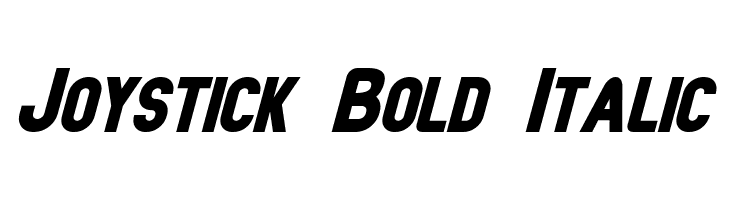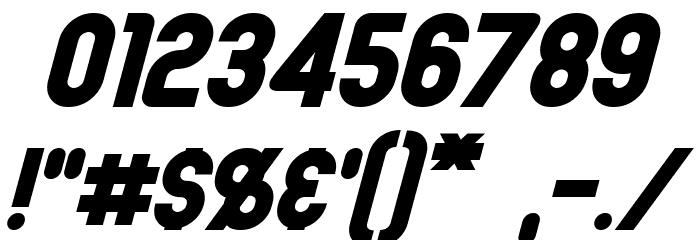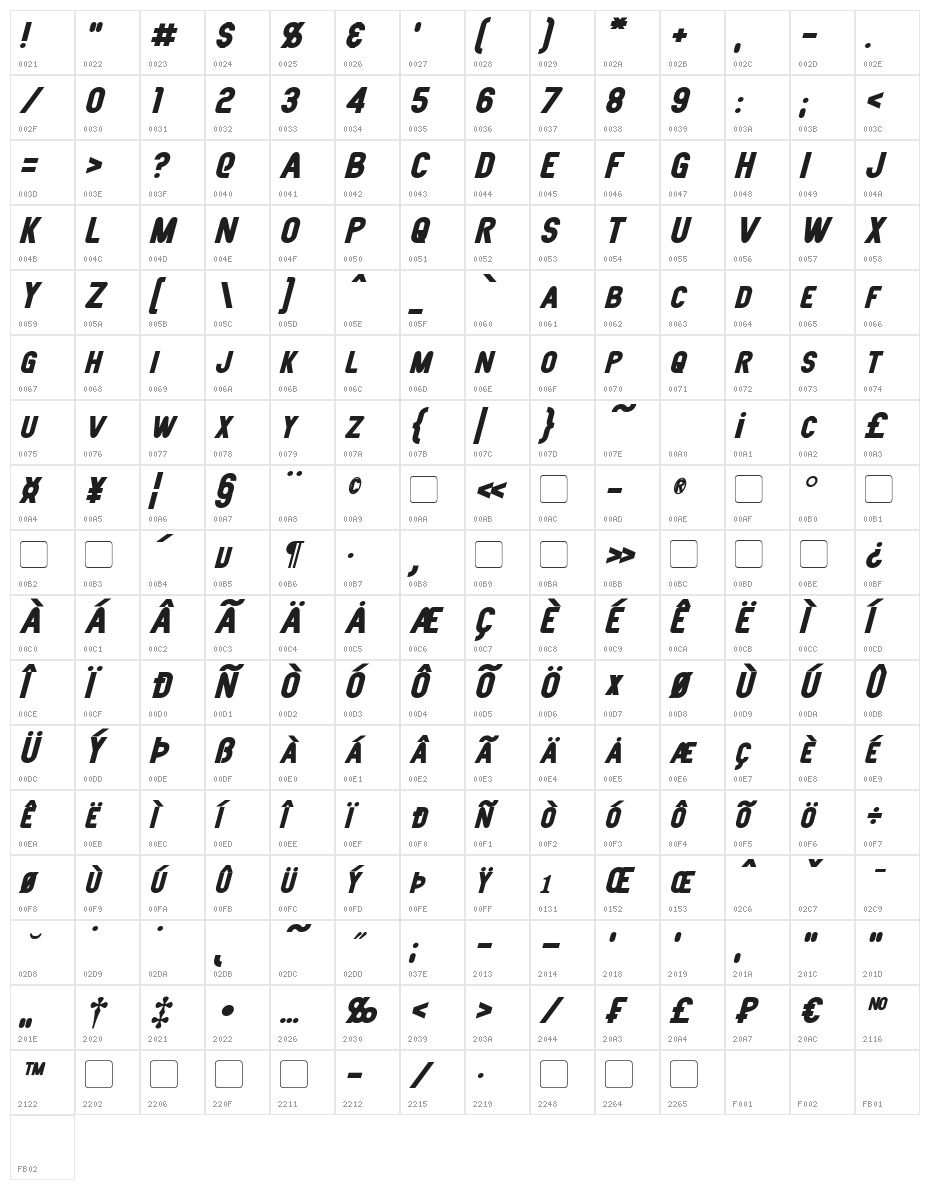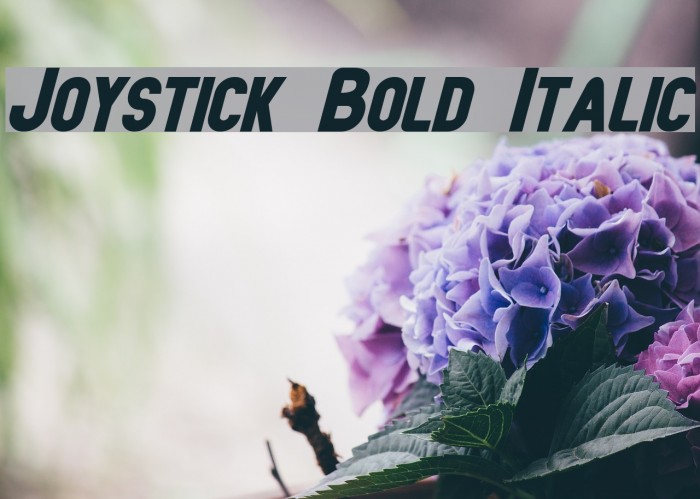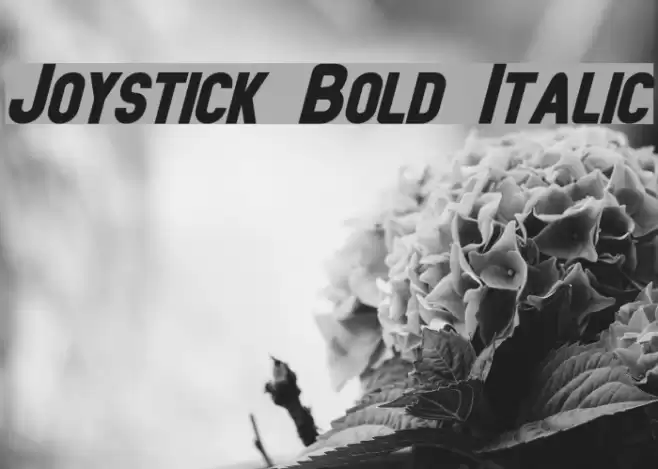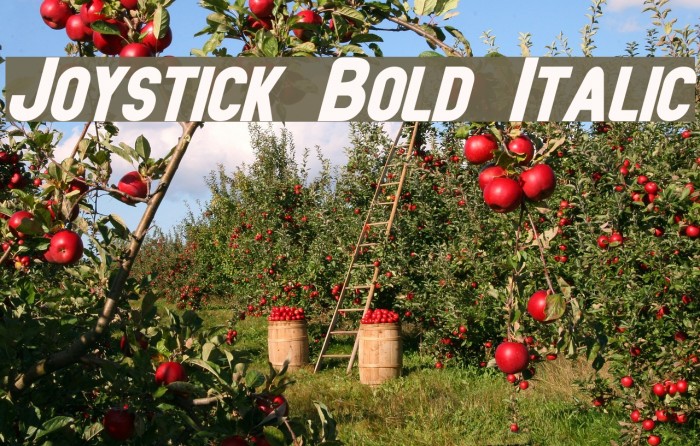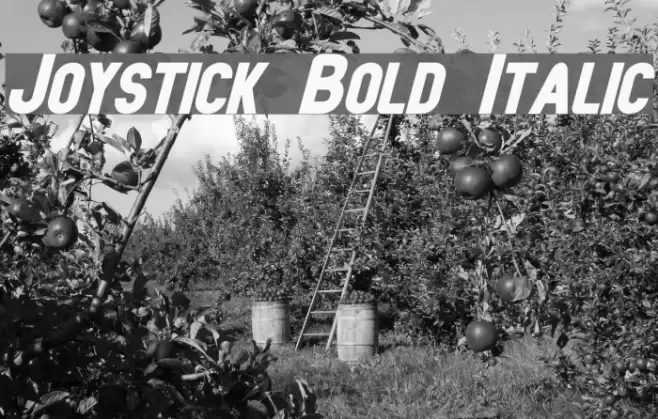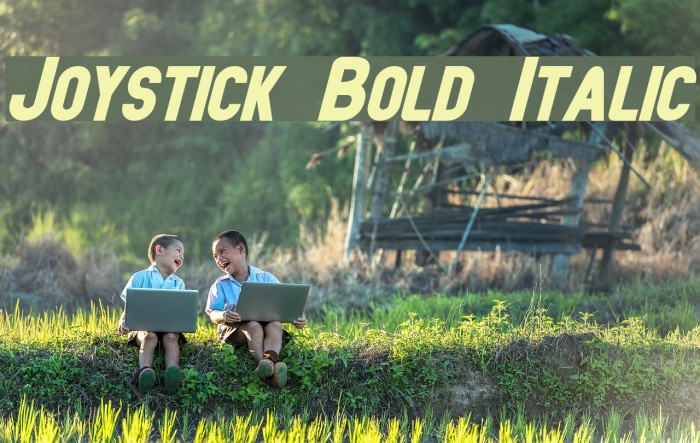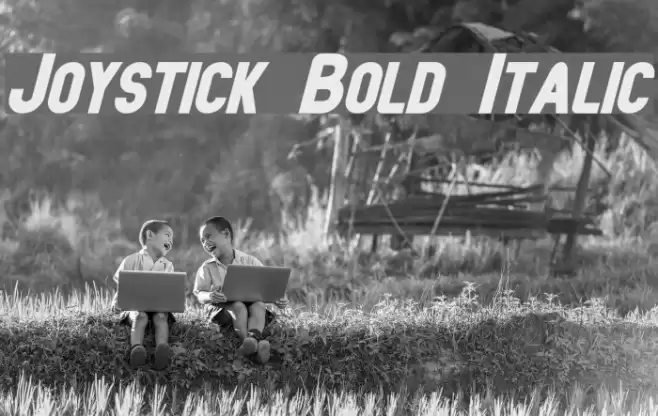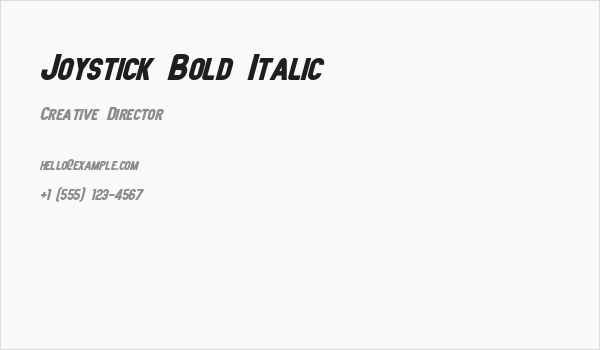
Joystick Bold Italic Font
Joystick Bold Italic Description
This font exhibits a bold and dynamic style with a distinct italic slant, giving it a sense of movement and energy. The characters are robust and impactful, making them highly legible and suitable for attention-grabbing designs. The uppercase and lowercase letters maintain a consistent weight, ensuring uniformity across text. Numbers and special characters are designed with the same boldness, providing a cohesive look. The font's modern and sleek appearance makes it ideal for contemporary projects that require a strong visual presence.
| Proposed Projects | Ideal for sports branding, dynamic posters, video game titles, and any project needing a bold, energetic typeface. |